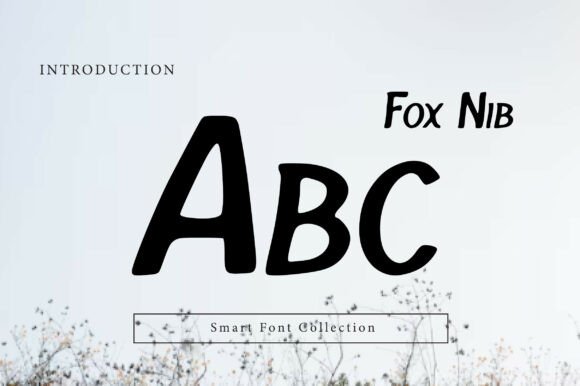
The Birth of a Wild Idea: Discovering the Fox Nib Font
Do you remember that moment when a spark of creativity strikes, and you feel the urge to unleash your inner wild child? For designers, it’s that feeling of freedom that comes with choosing the perfect font to bring a project to life. And, for those seeking a bold, casual handwritten display font that exudes confidence and playfulness, the Fox Nib Font is the perfect companion.
As a celebration of characterful imperfection, the Fox Nib Font features sharp terminals, rounded edges, and a lively hand-drawn character that’s both clever and agile. This typeface is a powerhouse for storytelling, making it an ideal choice for projects that need to feel authentic and grounded. Whether you’re designing children’s book titles, adventure-themed branding, or rustic cafe menus, the Fox Nib Font is sure to add a touch of wild, untamed creativity to your work.
Key Features of Fox Nib Font
- Font Family: Fox Nib
- Unique Characteristics: Fox Nib features a distinctive, hand-drawn feel with subtle brush strokes, giving it a warm and organic appearance.
Designer Review: Fox Nib Font
Overall, I’m quite impressed with Fox Nib Font. ✨ The font has a unique, hand-drawn feel that’s both elegant and whimsical. It’s perfect for creative projects, like children’s books, greeting cards, or even branding for a quirky company.
The font’s varying line widths and subtle flair at the ends of strokes give it a lot of character. It’s great for adding a touch of personality to text, and the irregularities make it harder to overuse.
- ✨ Unique, hand-drawn feel that’s both elegant and whimsical
- ✨ Perfect for creative projects, like children’s books, greeting cards, or branding
- ✨ Irregularities make it harder to overuse
- ⚠️ May not be suitable for formal or professional projects
Overall, I’d recommend Fox Nib Font for projects that require a unique, creative touch. Just be aware of its limitations and use it accordingly.